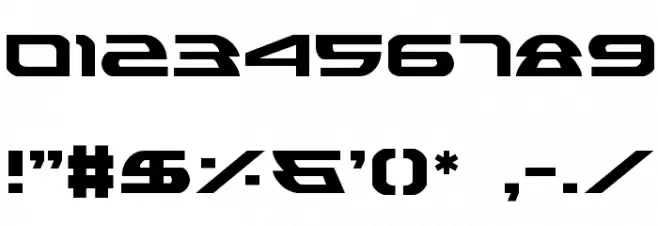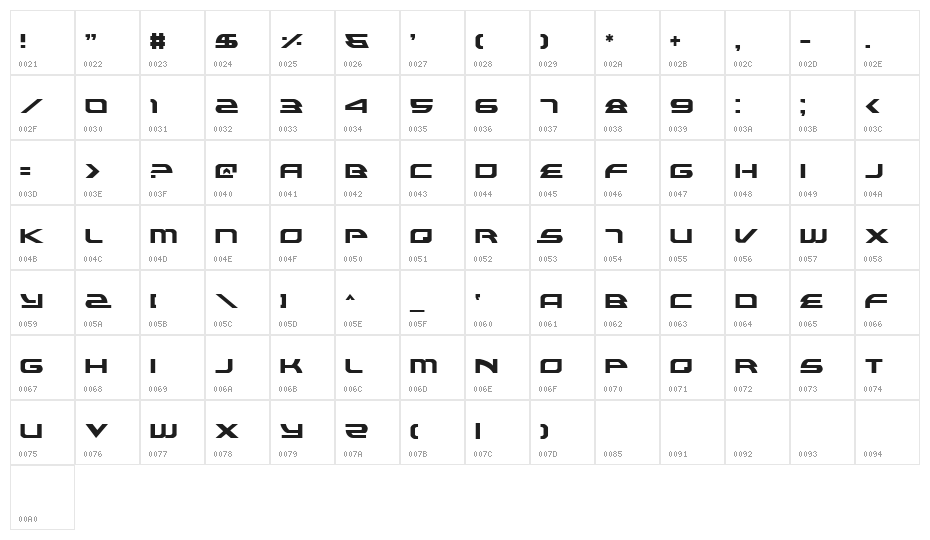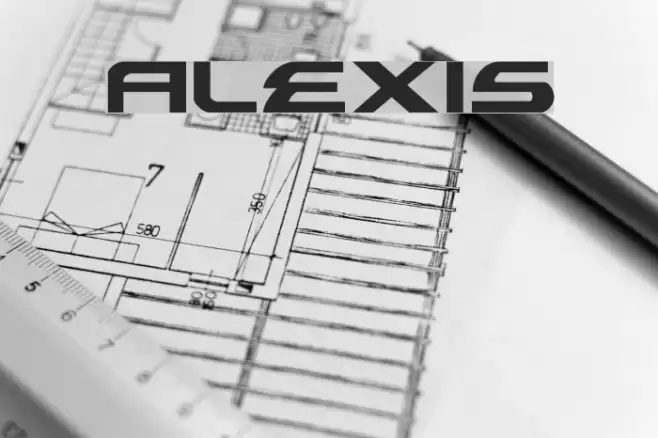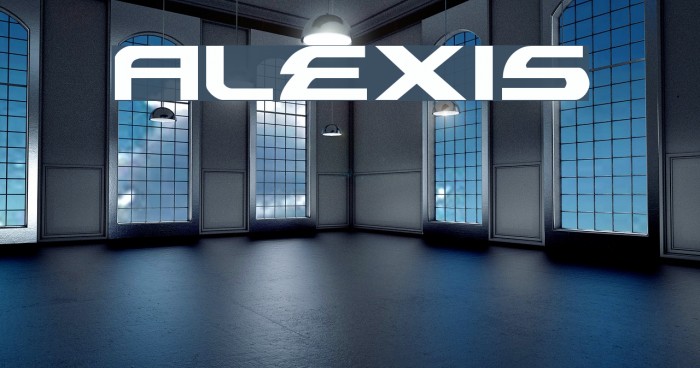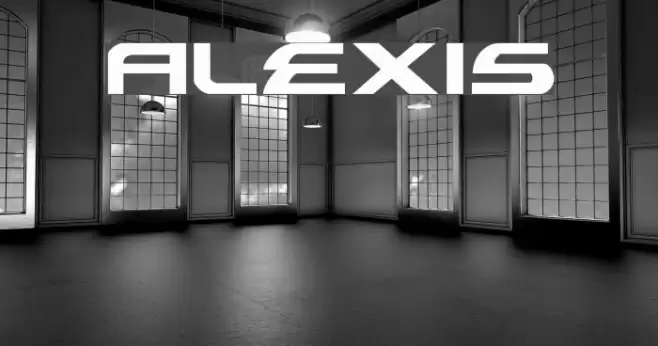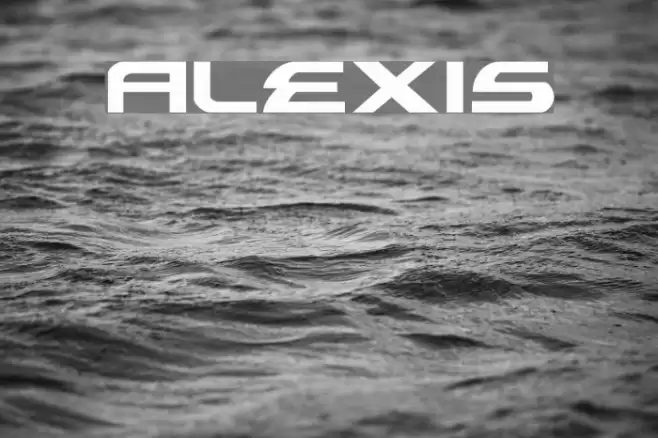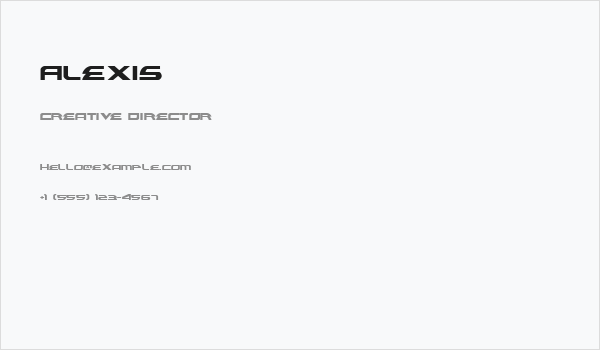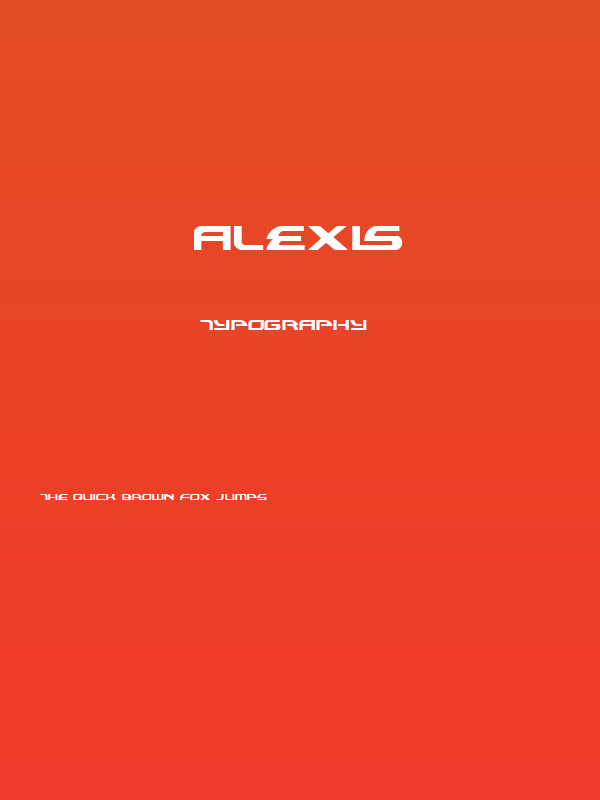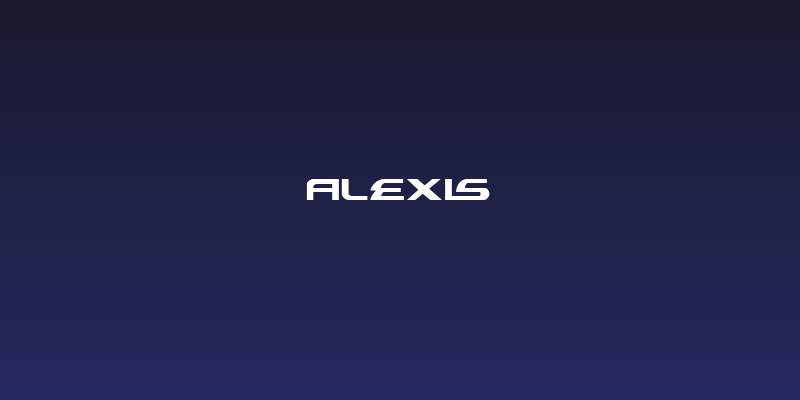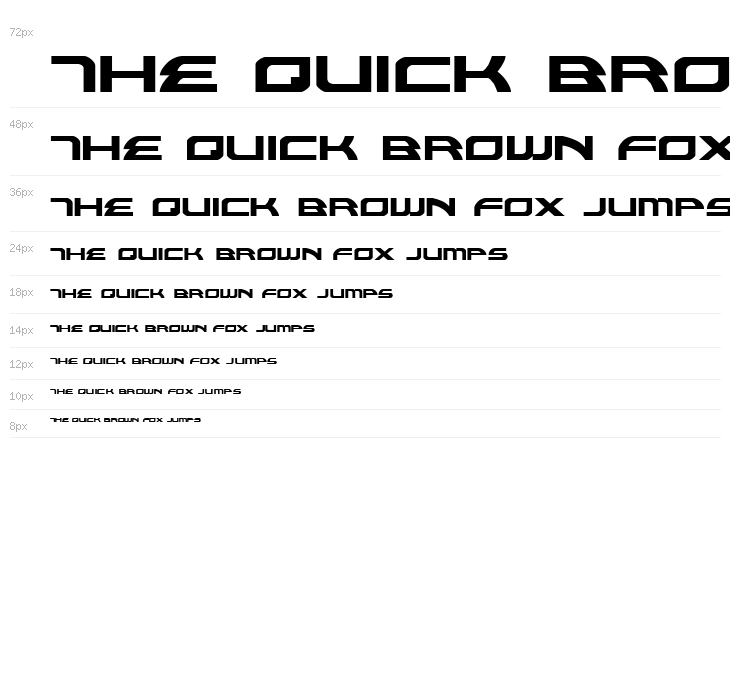
Alexis Font
Alexis Description
This font features a futuristic and geometric design, characterized by sharp angles and a bold presence. The uppercase letters are distinct with a strong emphasis on horizontal and vertical lines, creating a sense of movement and modernity. The lowercase letters maintain this geometric style, ensuring consistency across the typeface. Numbers are equally bold and angular, making them stand out. Special characters are uniquely styled, adding to the overall futuristic theme. This font is ideal for projects that require a modern and edgy look, such as technology branding or sci-fi themed designs.
| Proposed Projects | Ideal for technology branding, sci-fi themed designs, and modern advertising. |